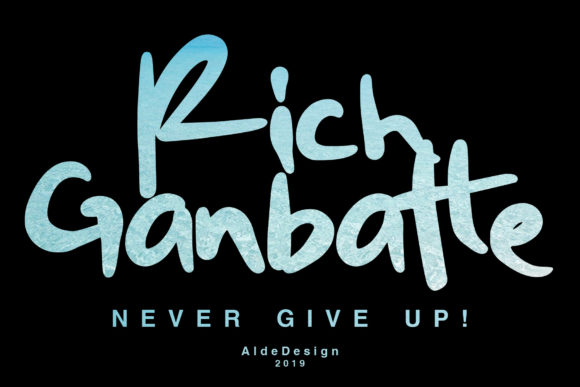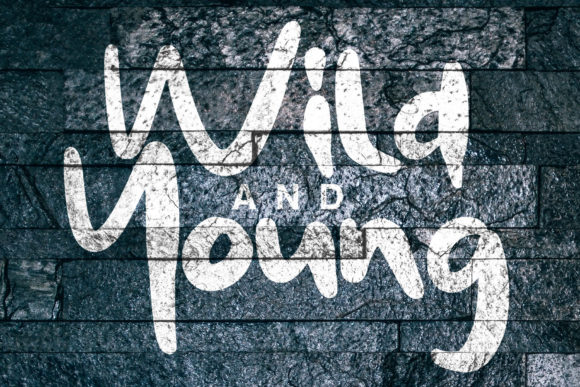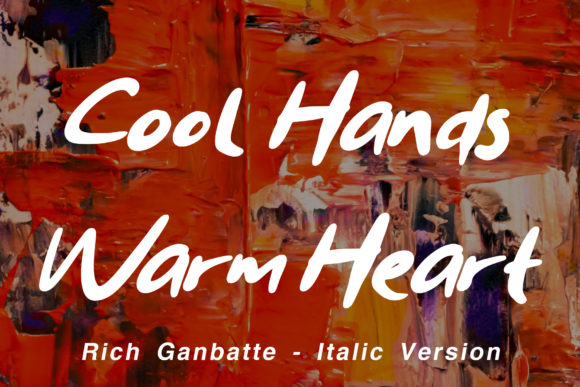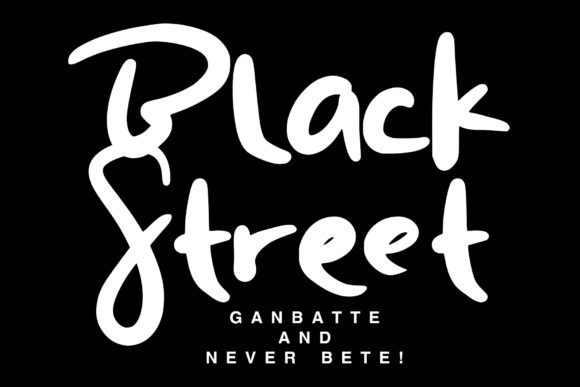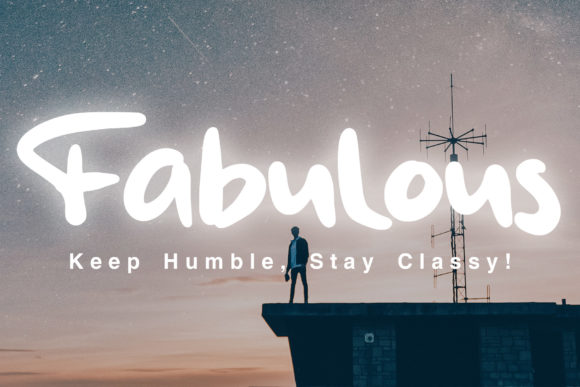
Rich Ganbatte Font
About Rich Ganbatte Font
Rich Ganbatte is an exciting script font that is perfect to show something strong and different. Get inspired by its modern street style.